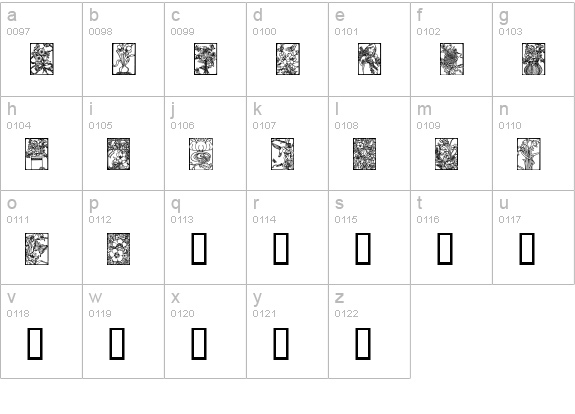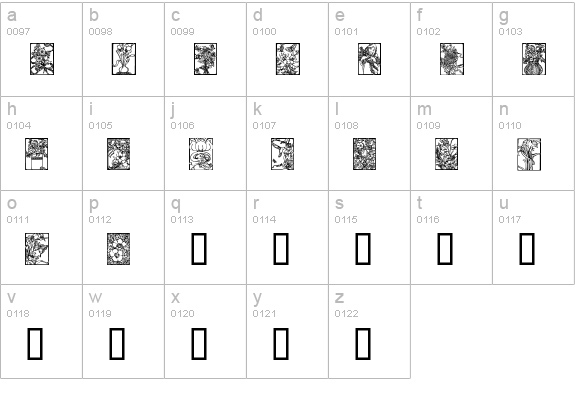
Art Nouveau Flowers font is a stunning and intricate typeface that embodies the essence of the Art Nouveau style with its delicate floral motifs and flowing lines. Inspired by the organic forms found in nature, this font exudes elegance and sophistication, making it perfect for various design projects. This font features ornate floral details that add a touch of whimsy and charm to any text or design. With its graceful curves and intricate patterns, Art Nouveau Flowers font brings a sense of beauty and creativity to your work. Best of all, Art Nouveau Flowers font is available for free download at FontsMarket.com, allowing you to easily incorporate this unique typeface into your projects without any cost. Whether you're creating invitations, posters, or branding materials, this font will surely make a statement and add a touch of artistic flair to your designs.